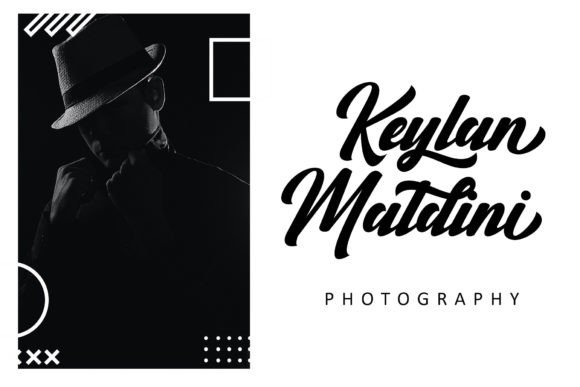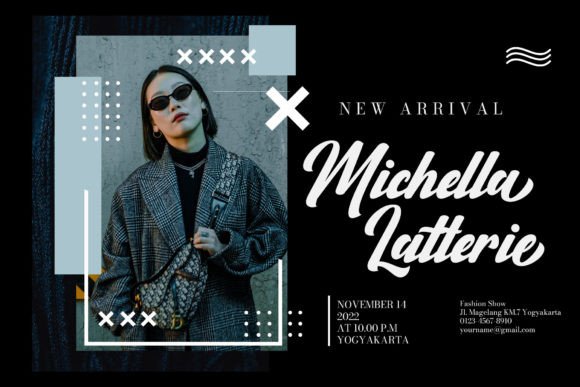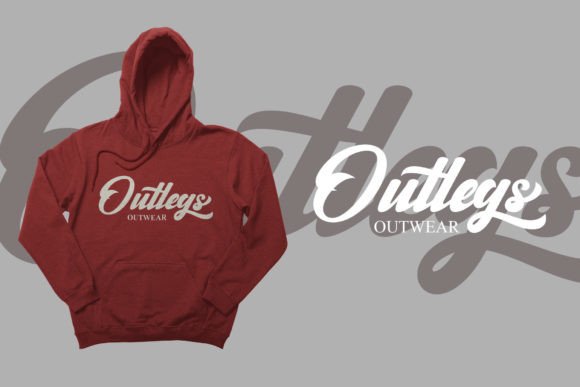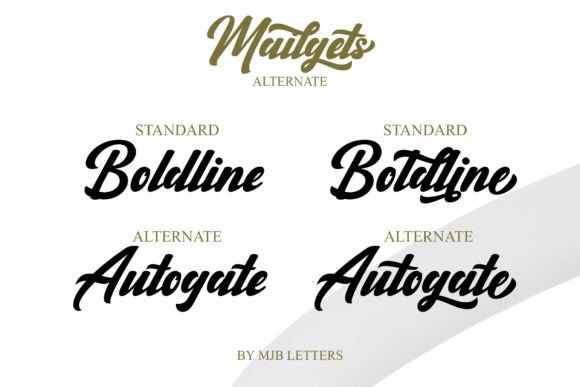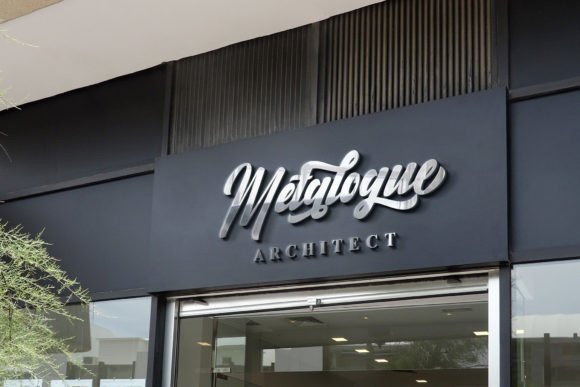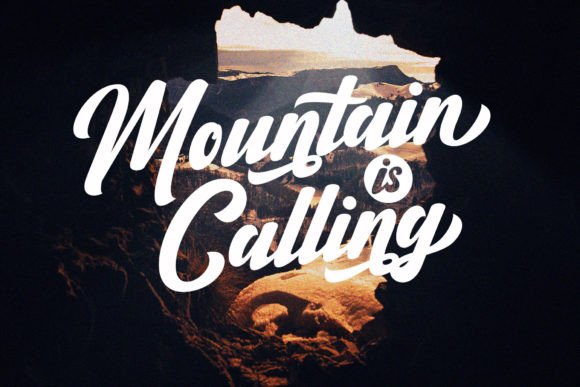
Introduction to Mailgets Font
Have you ever been working on a creative project and stumbled upon the perfect font that elevates your entire design? For many designers, this moment is a game-changer. It’s the spark that ignites the creative process and brings your vision to life. For those who have experienced this thrill, you know exactly what we’re talking about.
For designers seeking a unique and authentic font that stands out from the crowd, look no further than the Mailgets Font. This modern bold script font combines the essence of modern fashion with a vintage touch, creating a truly distinctive look that’s perfect for a wide range of design projects.
Key Features of Mailgets Font
- High-quality design resource ideal for creative projects and personal use
- Unique transparent background design for seamless integration into various backgrounds
- Includes a range of characters, including uppercase and lowercase letters, numbers, and special characters
- High-resolution design (300 DPI) for crisp and clear display in various applications
- Perfect for use in graphic design, digital art, and other creative endeavors
Honest Review: Mailgets Font
I recently came across the Mailgets Font, and I must say it’s a great addition to any design resource. I was looking for a font that would work well for a creative project with a transparent background, and I was impressed by the high quality of this font.
- ✨ Unique and modern design that sets it apart from other fonts
- ✨ High quality, making it perfect for print and digital designs
- ⚠️ Limited character set, which might not be ideal for long-form content
- ⚠️ Not as versatile as some other fonts, which might limit its use in certain design contexts
Tips for Getting the Most Out of Mailgets Font
For optimal results, use Mailgets Font in conjunction with high-quality images and a clear, concise design. Experiment with different font sizes and styles to add visual interest to your project.
Mailgets Font is ideal for use in creative projects, such as social media graphics, infographics, and presentations. Its transparent background makes it easy to layer over images and other design elements.